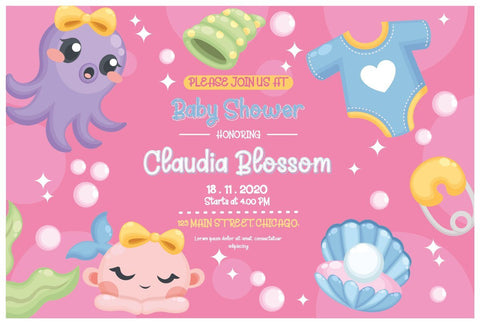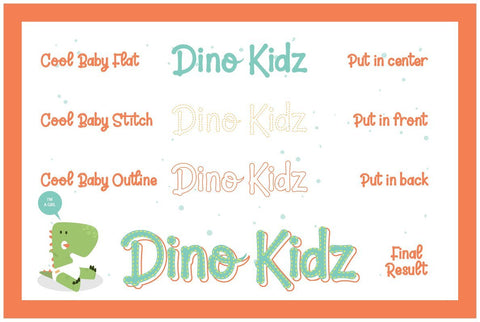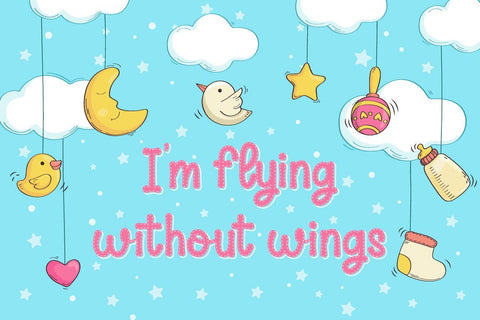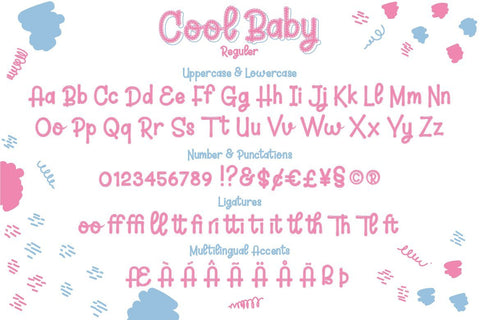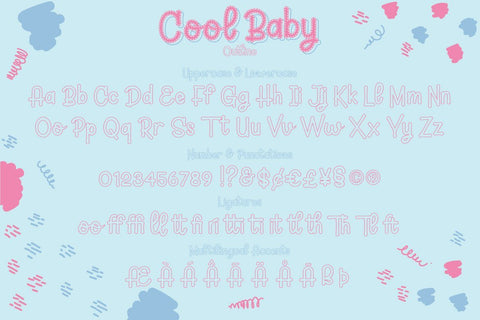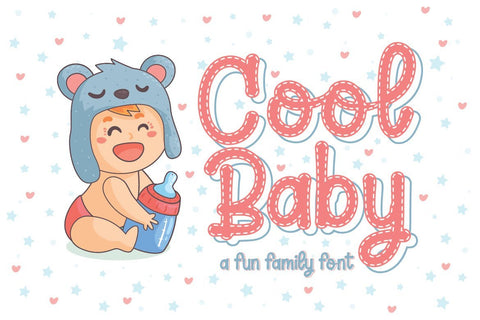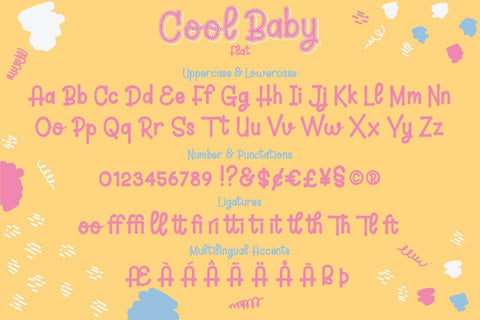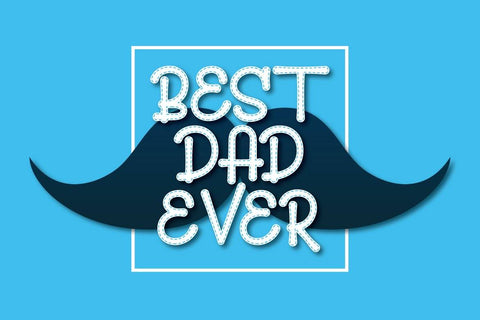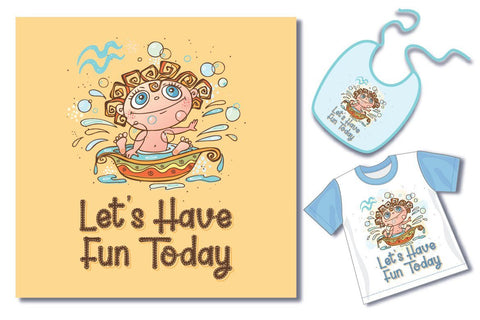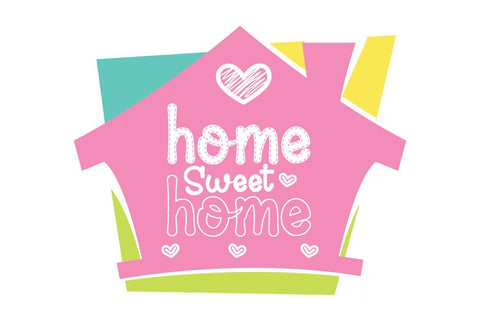
Cool Baby - A Fun Family Font
Cool Baby is a cute new font for all your fun projects! It comes in 4 versions: regular, flat, stitch and outline. Very good for all kinds of projects such as branding, posters, children's t-shirt designs, baby showers, invitations, crafting, cutting, quotes, etc.